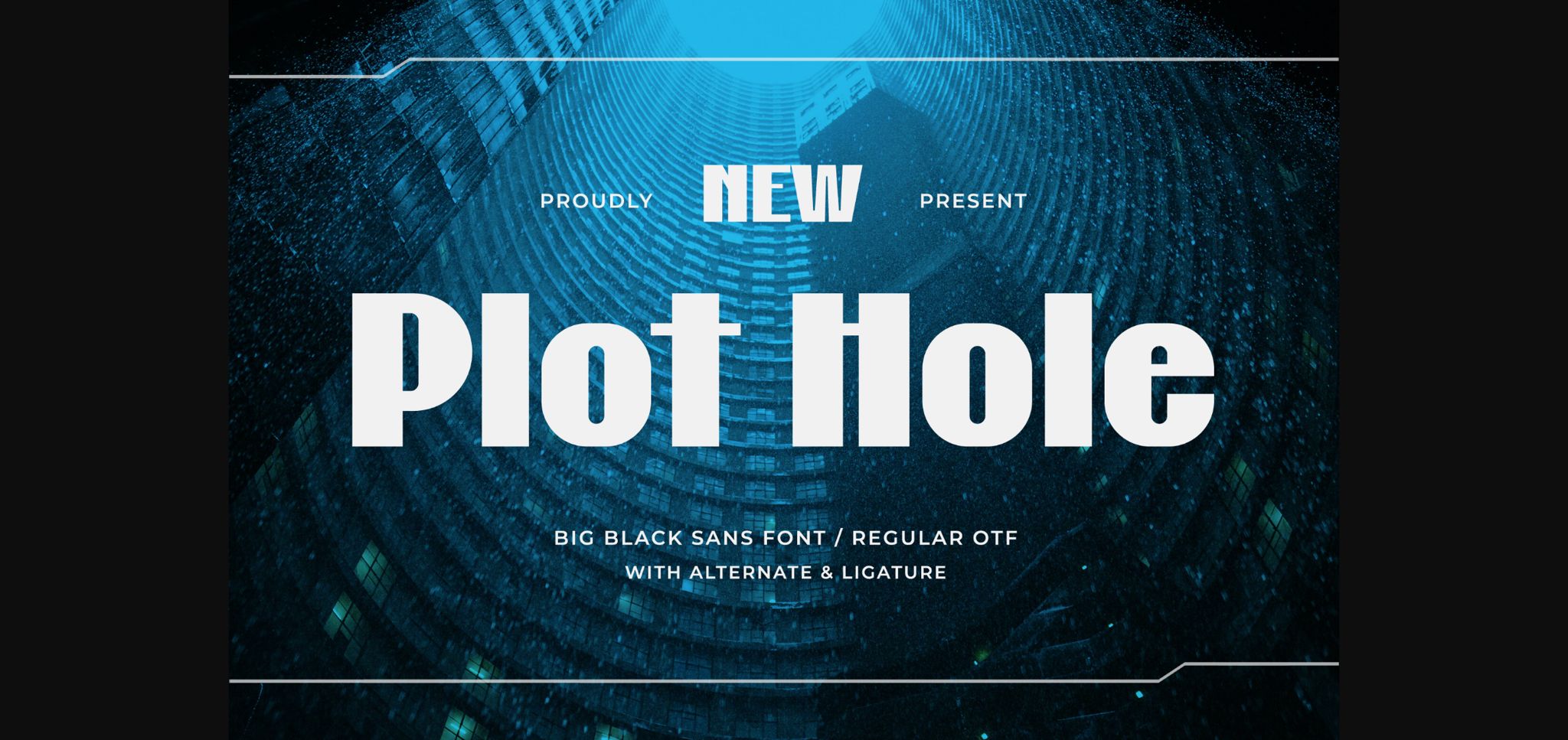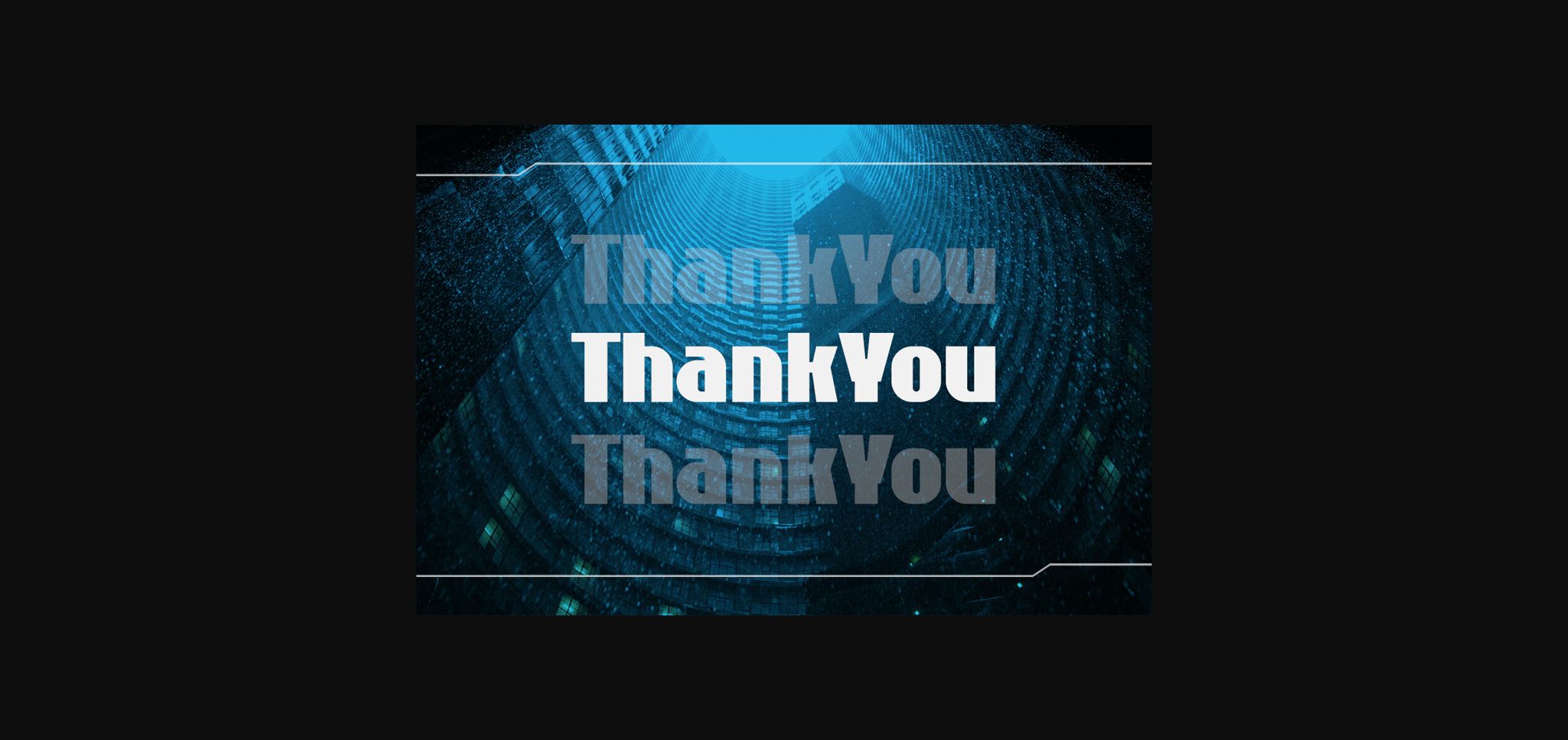
About Plot Hole Font
Introducing “Plot Hole” – a big black sans font that fills the gaps in your designs with boldness and impact! Embrace the versatility of “Plot Hole” as it effortlessly fills your designs with a touch of sophistication. Whether you’re working on editorial layouts, urban graphics, minimalist logos, or striking packaging, this font will captivate your audience with its big and impactful style.